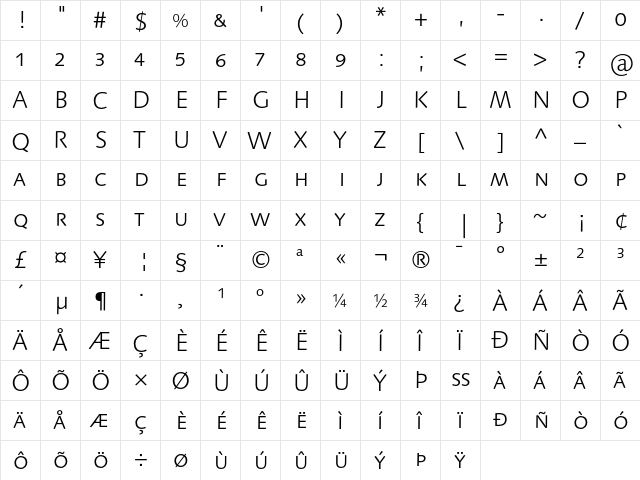
LinotypeSyntaxSC Light
Design Context for LinotypeSyntaxSC Typeface
LinotypeSyntaxSC offers clean, dependable letterforms without strong stylistic allegiance, making it a practical choice for designers who need flexibility. Its slender proportions lend an understated elegance to any composition.